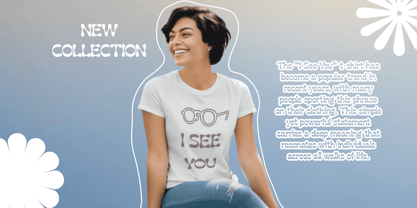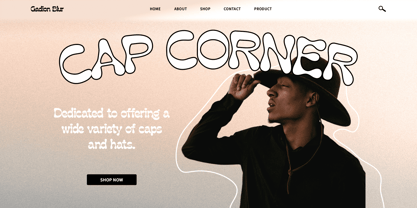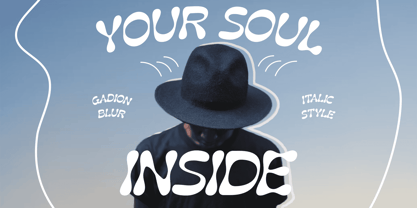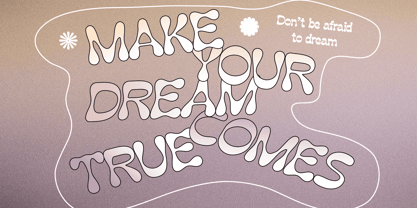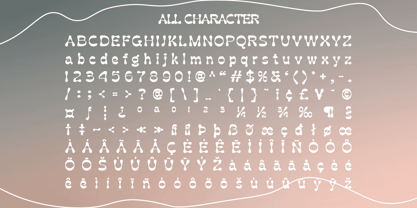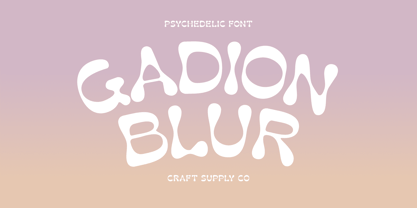
Gadion Blur
by Craft Supply Co
The Gadion Blur Font Family was designed by Trio Nazzar Saputra, Wahyu Hadi Yuana and published by Craft Supply Co. Gadion Blur contains 2 styles.
Gadion Blur: Retro Vibes in Balloon Form
Balloon Display Design
Gadion Blur features a playful balloon display design that adds a nostalgic touch to any project. Its whimsical shape and retro vibes evoke a sense of fun and nostalgia.
Retro Vibes
With its vintage-inspired design, This font exudes retro vibes that transport viewers back in time. Its charming aesthetic captures the essence of bygone eras and adds a delightful flair to your designs.
Blur Effect
The font is enhanced with a subtle blur effect, adding depth and dimension to its appearance. This effect creates a soft, dreamy quality that enhances the retro feel of the font and makes it stand out in any display setting.
Perfect for Display
This font is specifically crafted for display purposes, making it ideal for headlines, banners, and other prominent elements. Its bold presence and nostalgic charm ensure that it grabs attention and leaves a lasting impression.
Nostalgic Charm with a Playful Twist
This font combines retro vibes with a playful balloon design and subtle blur effect, making it an excellent choice for designers seeking to add whimsy and nostalgia to their projects. Whether used for branding, signage, or event promotions, Gadion Blur delivers eye-catching results with its unique design.